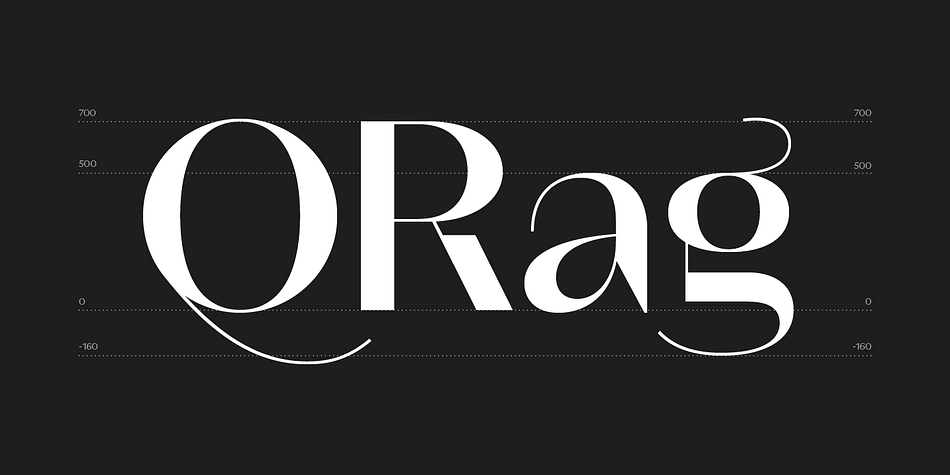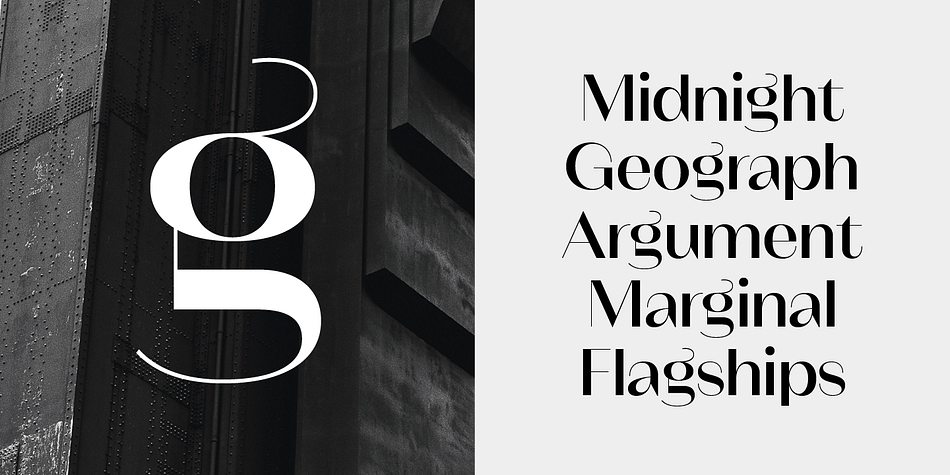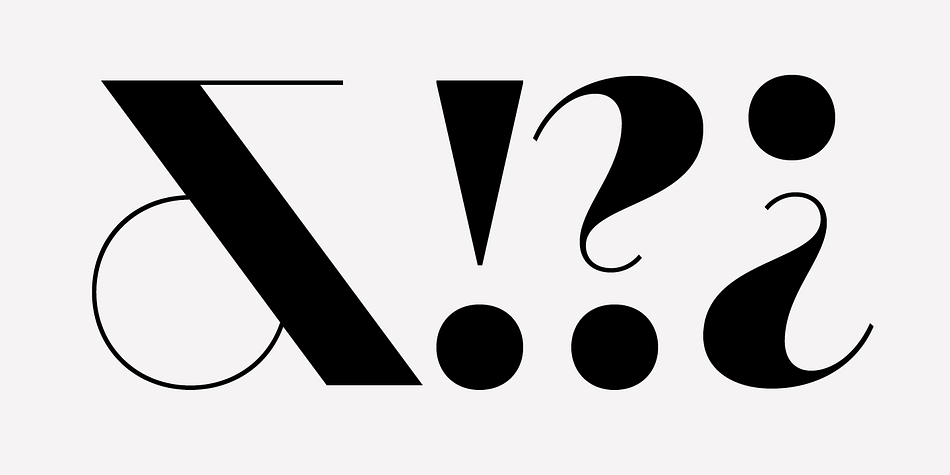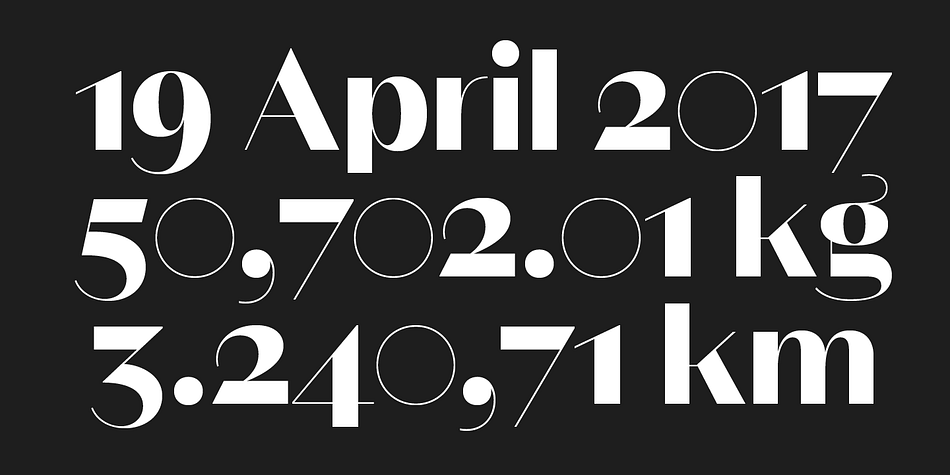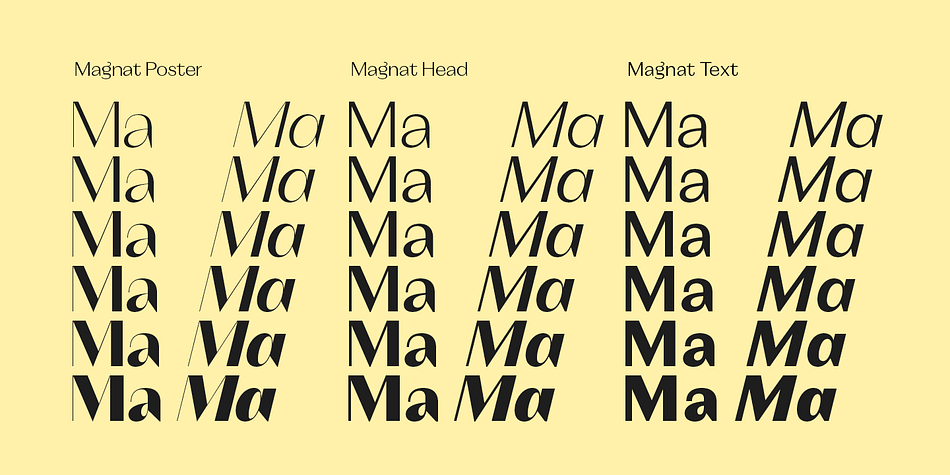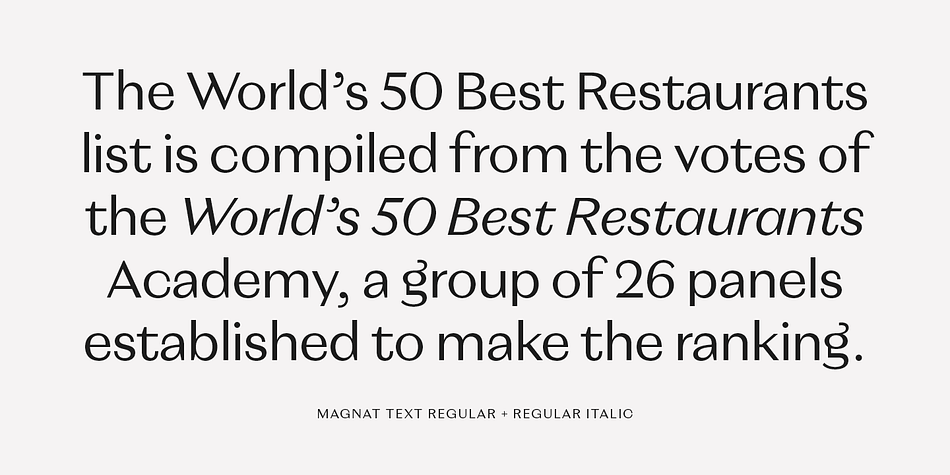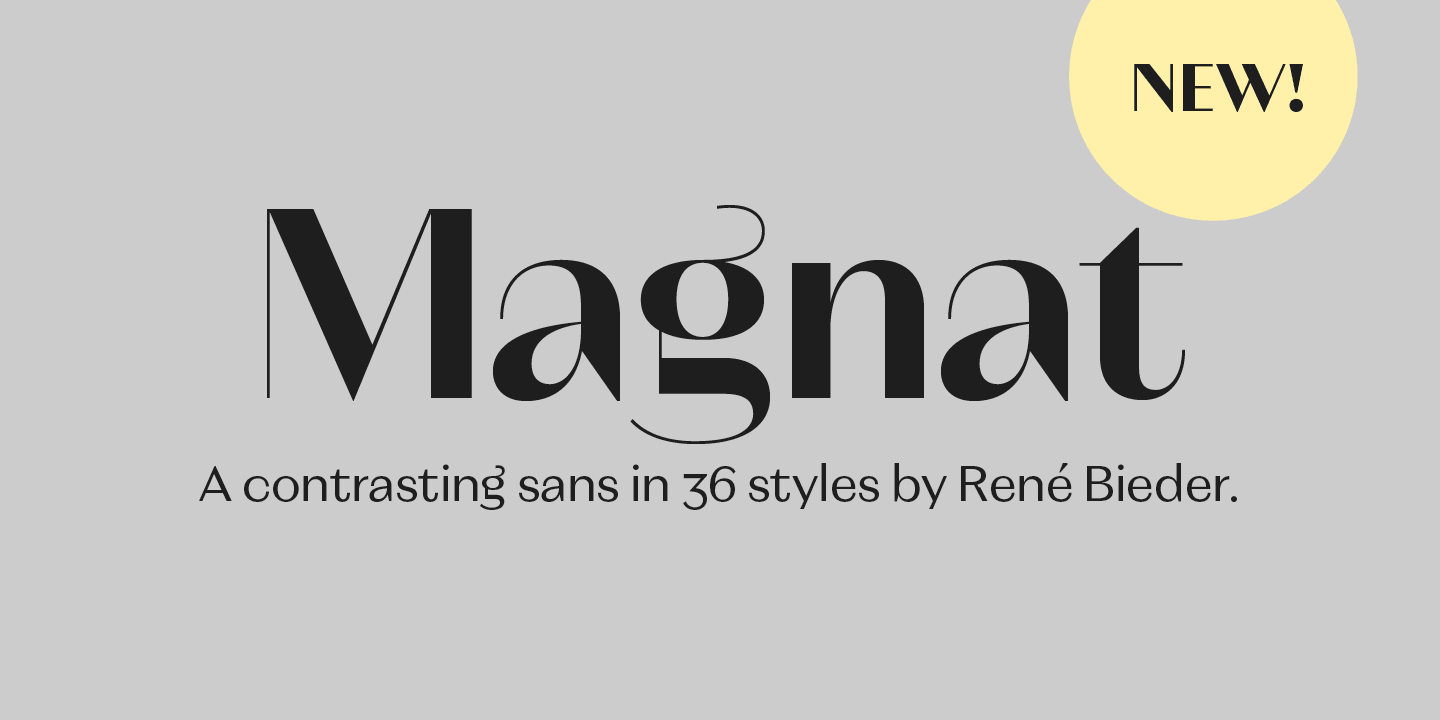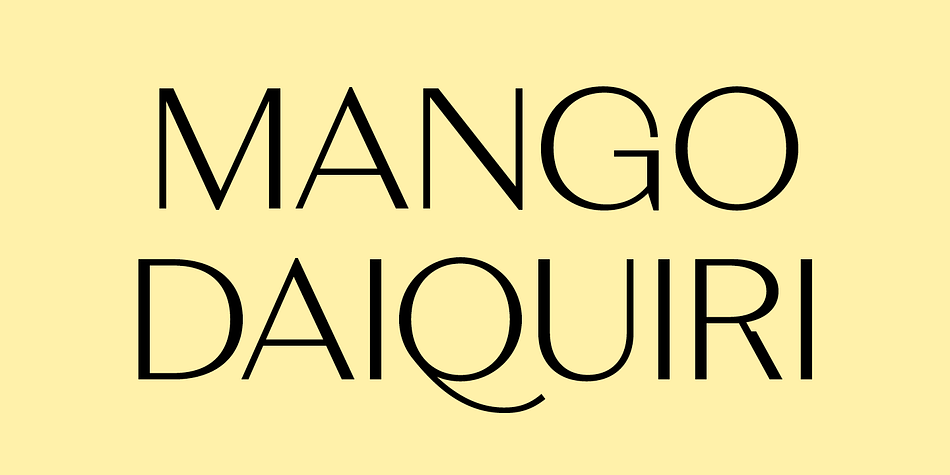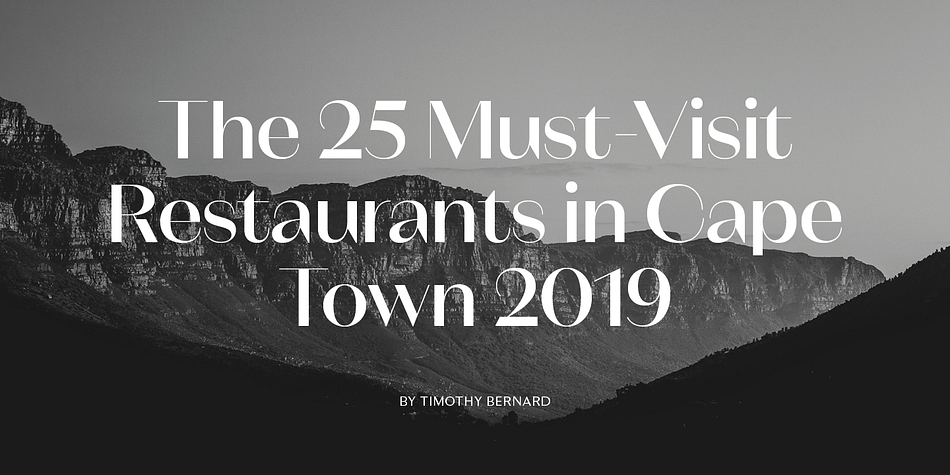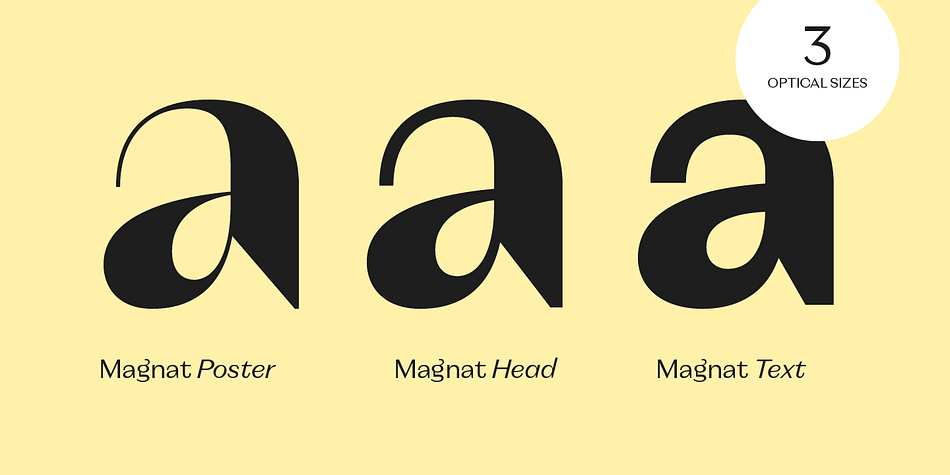
Designed by René Bieder, Magnat is a display sans and sans serif font family. This typeface has thirty-six styles and was published by René Bieder.
Magnat is a contrasting sans drawing inspiration from designs from the early twenties century and expands them into an elegant and distinctive contemporary design. Playful elements such as the curvy ear on the lowercase g or the long tail on the uppercase Q break the strictness and add character. The combination of closed apertures with the contrasting strokes create an elegant and distinctive overall appearance.
The Magnat family is available in 36 weights including matching italics, divided into 3 subfamilies: Poster, Head and Text. Each has been designed for its individual range of text sizes. The Poster and Head styles with their tight spacing and luxurious shapes are made for impactful headlines and short paragraphs, whereas the text weights are either a great addition for small text sizes or, when set in large sizes, perfectly work as a robust standalone font with a lot of character.
Each font style is equipped with many opentype features such as alternate characters, different number sets or case sensitive shapes making it a perfect choice for professional type setting in branding, editorial or digital design.